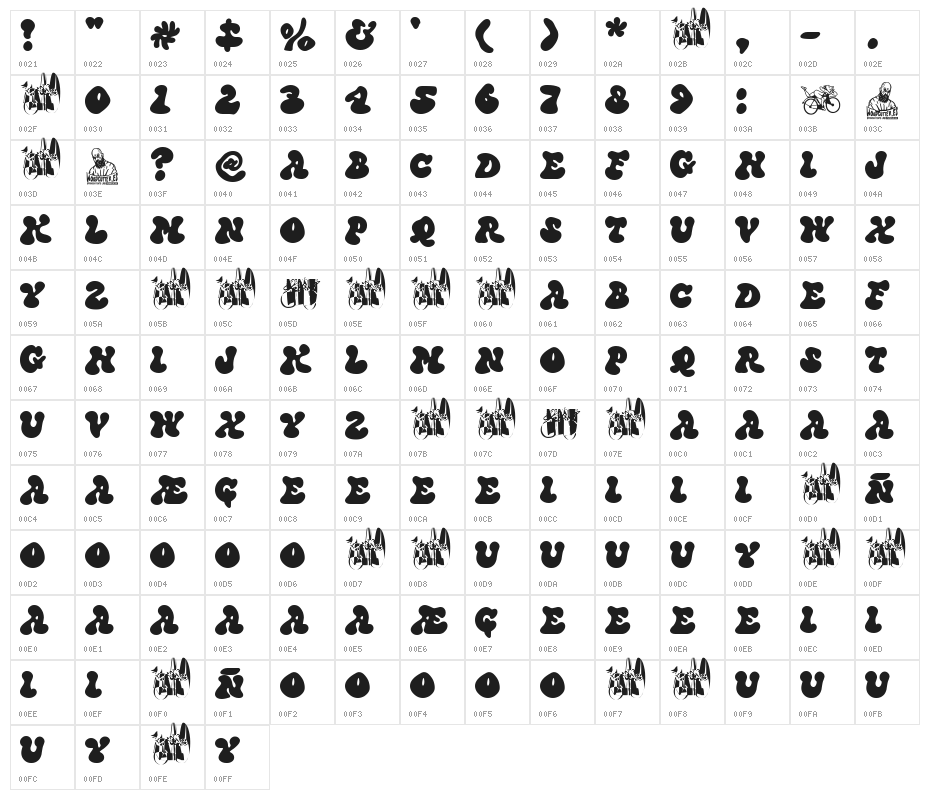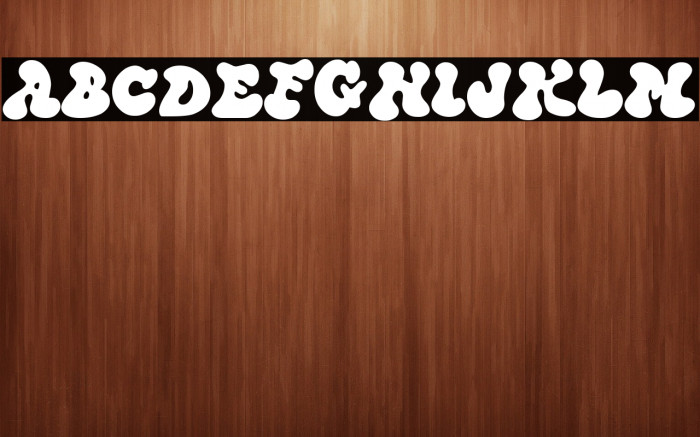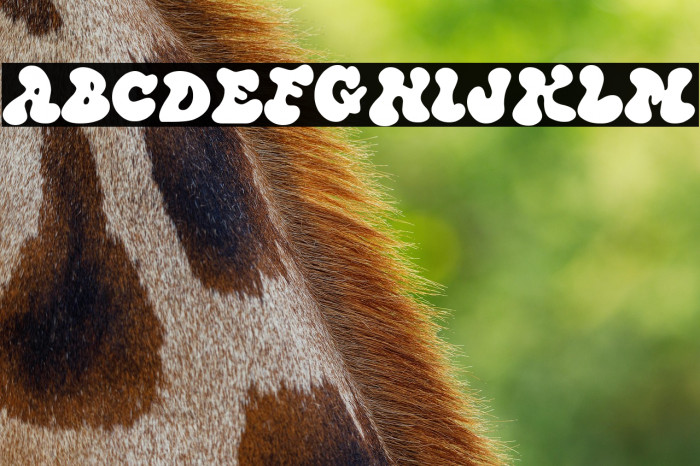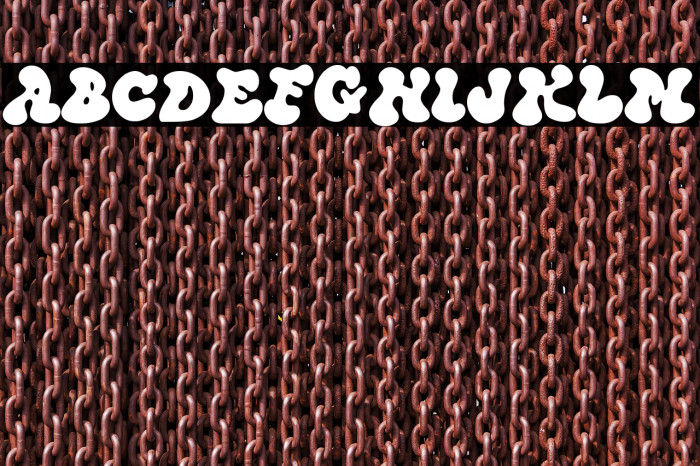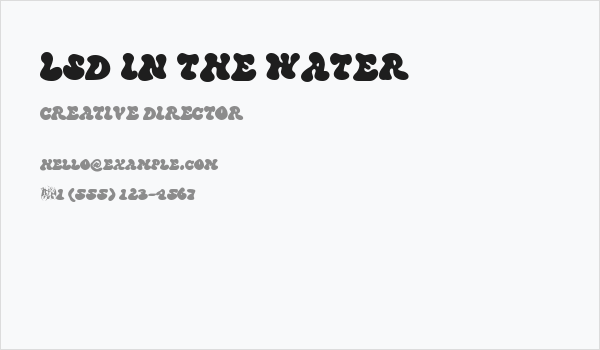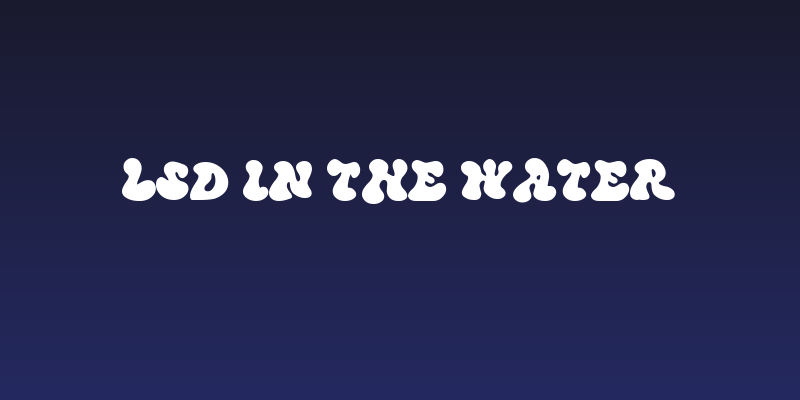
LSD in the Water Font
LSD in the Water Description
This font features a bold and playful design with thick, rounded characters that convey a sense of fun and whimsy. The letters are heavily stylized, with exaggerated curves and a bubbly appearance that makes them stand out. The font's unique style is reminiscent of retro or psychedelic aesthetics, making it ideal for creative and unconventional projects. The characters are closely spaced, enhancing the cohesive and fluid look of the text. This font is best suited for display purposes where its distinctive style can be appreciated.
| Overall Style | Retro, Playful |
| Proposed Projects | Ideal for posters, album covers, children's books, and any project requiring a fun, eye-catching typeface. |